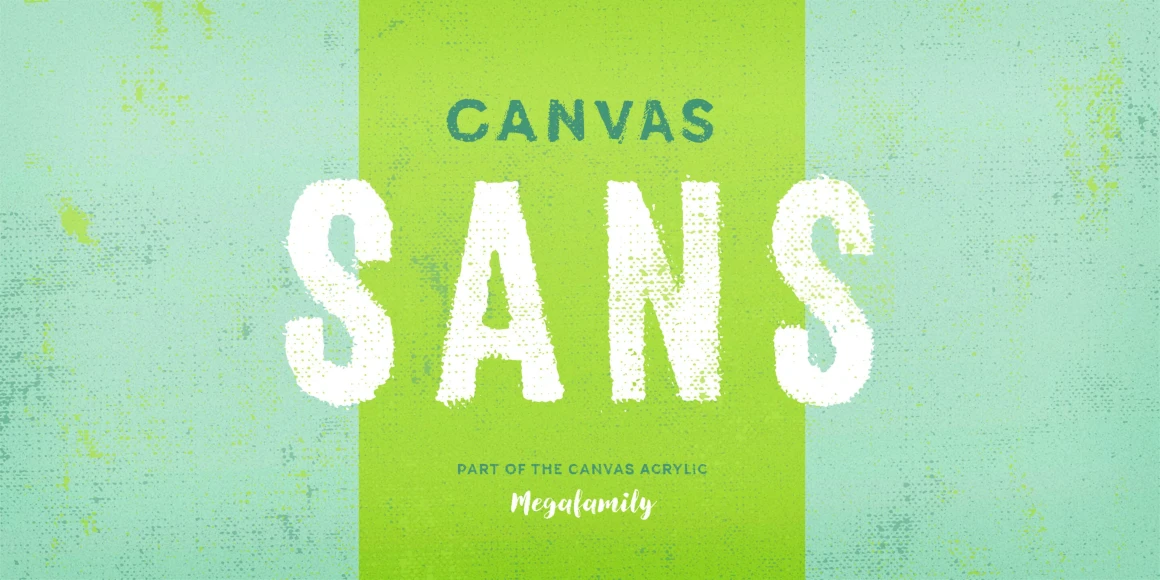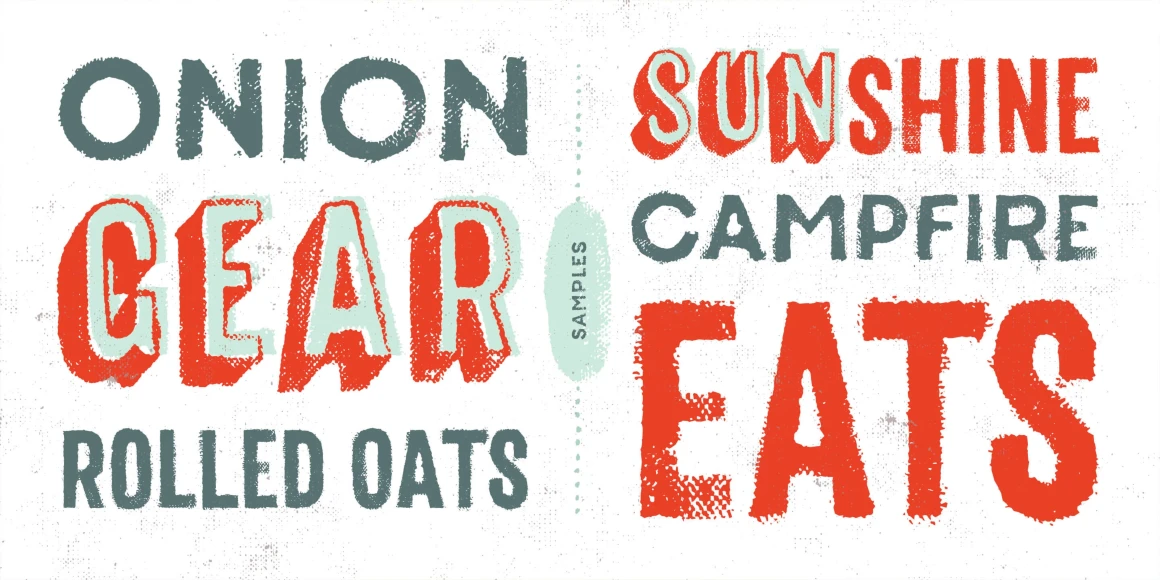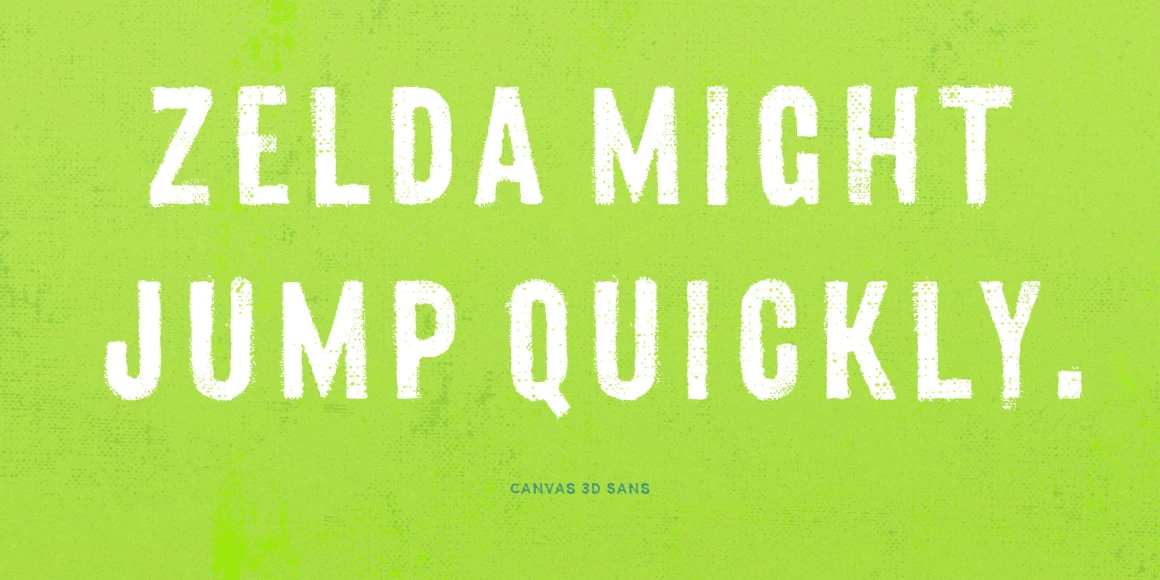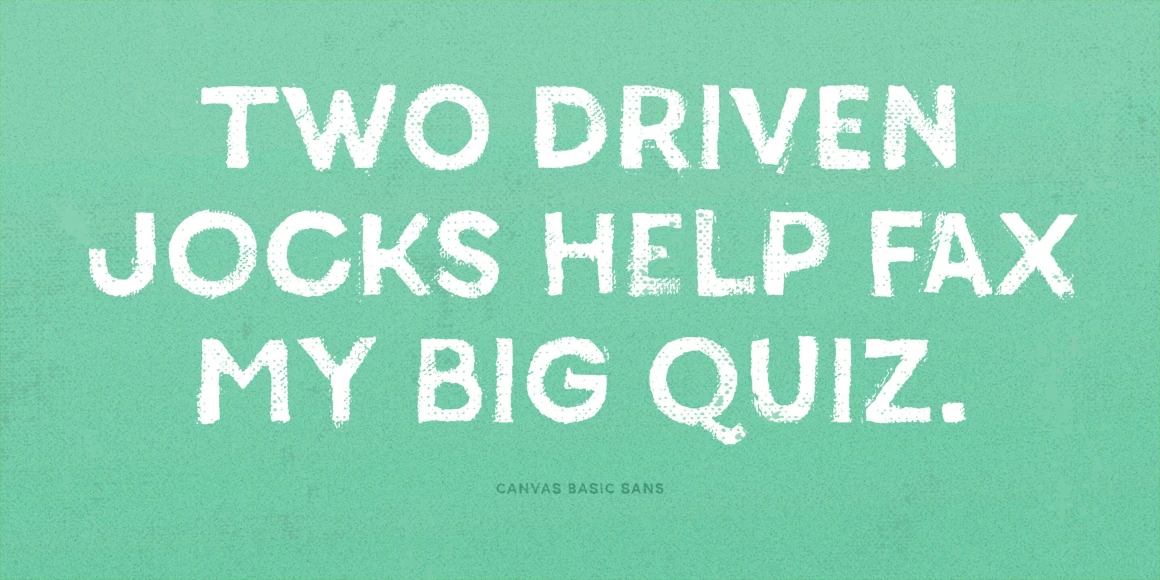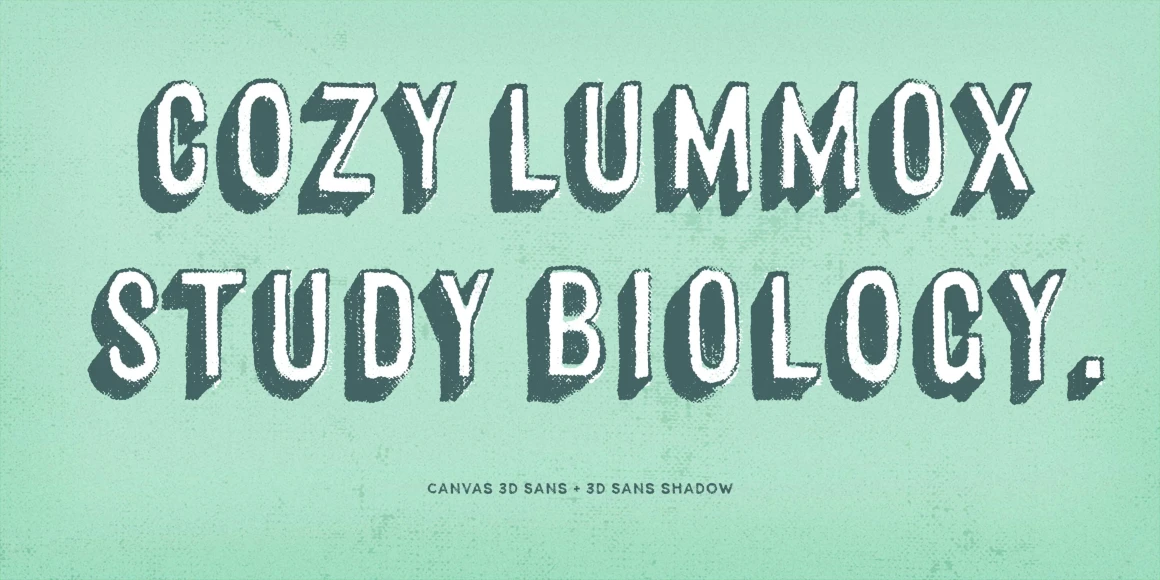
Canvas Basic Sans
Canvas Sans is part of the Canvas Acrylic Megafamily. It includes Canvas 3D (a textured dimensional type set) and Canvas Basic (an all-caps geometric sans). It features authentic, hi-res texture that retains its realism even at very large sizes. Canvas Sans has double-letter ligatures that automatically fix adjacent duplicate letters. A bonus set of complimentary vector background textures, shapes and elements is available from the site.
Designed by Ryan Martinson & Rhea Martinson